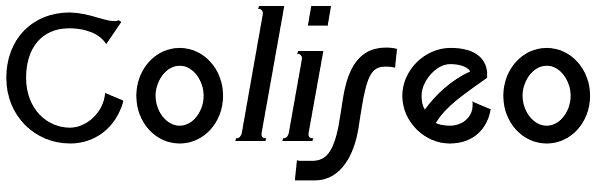
Coliseo
Coliseo is a lively and fun Art Nouveau inspired typeface, inspired by stone lettering seen on facade of the Coliseum Theatre in London. It's beautifully characterful let legible making it ideal for poster work or anything where it's useful to...